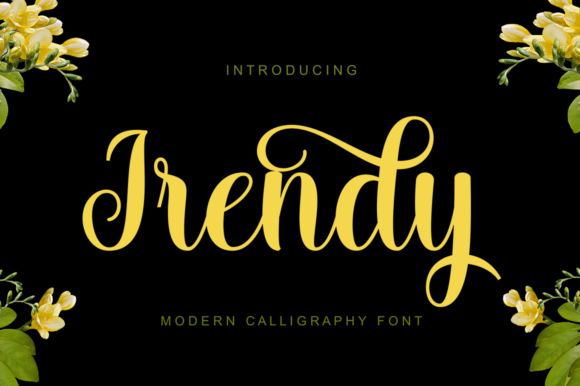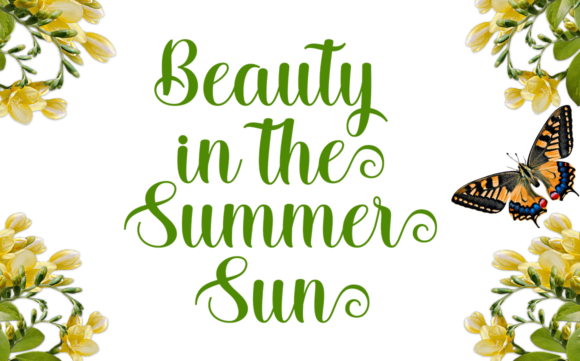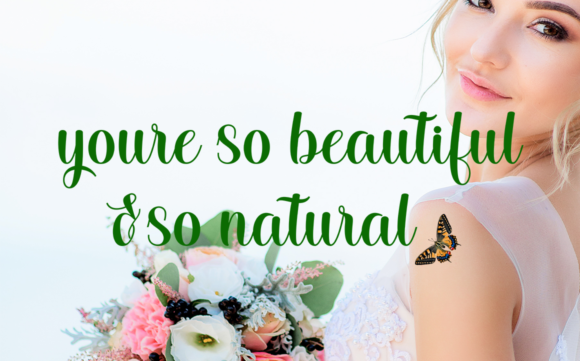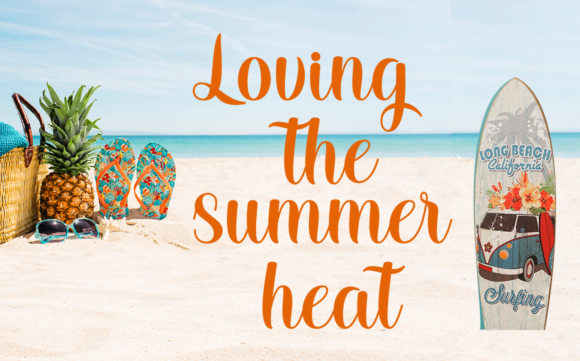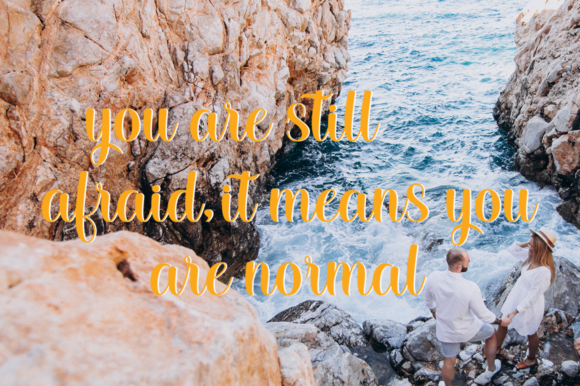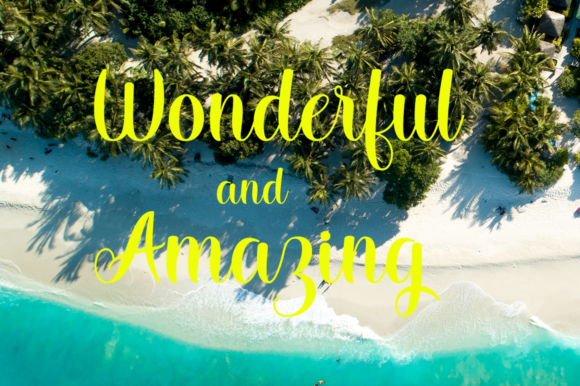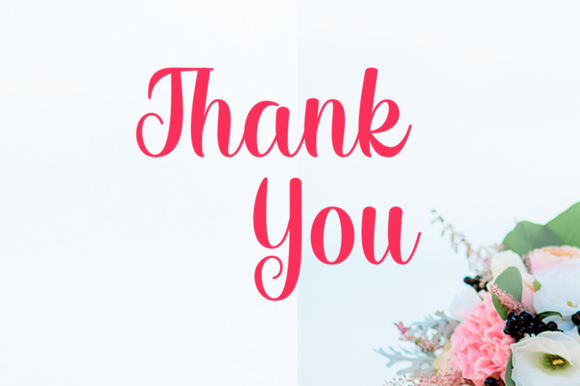
Irendy Font
About Irendy Font
Irendy is a sophisticated script font. It features a varying baseline, smooth lines, gorgeous glyphs and stunning alternates.
This font is PUA encoded which means you can access all of the amazing glyphs and swashes with ease! It also features a wealth of special features including alternate glyphs and ligatures.